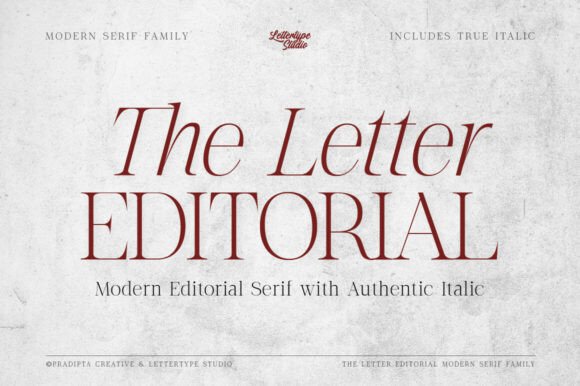
The Letter Editorial Font: Elevate Your Typography with Timeless Elegance
In the world of typography, a font can make all the difference in conveying the tone and personality of a brand or publication. For those seeking a sophisticated and elegant solution, The Letter Editorial font is an exceptional choice. This beautifully crafted serif font embodies the essence of modern editorial elegance, making it perfect for luxury branding, fashion editorials, book design, and high-end packaging.
Introducing The Letter Editorial: A Masterclass in Typographic Elegance
The Letter Editorial is a thoughtfully designed serif font that exudes luxury and refinement. Its distinctive characteristics include:
- Luxurious Contrast: The font features a high contrast between thick and thin strokes, giving it a sense of opulence and sophistication.
- Refined Proportions: The letterforms are carefully proportioned to create a sense of harmony and balance, making it ideal for body text and headlines.
- Gracefully Sculpted Letterforms: Each letter is meticulously crafted to convey a sense of elegance and refinement, ensuring that your typography stands out.
A glimpse into the elegant design of The Letter Editorial font.
Designed with Attention to Detail
The regular style of The Letter Editorial font is designed with a high degree of attention to detail, radiating structure and poise. This makes it an excellent choice for:
- Luxury Branding: Create a lasting impression with a font that embodies sophistication and elegance.
- Fashion Editorials: Elevate your fashion editorials with a font that exudes luxury and refinement.
- Book Design: Add a touch of elegance to your book designs with a font that is both classic and contemporary.
- High-End Packaging: Make a statement with packaging that features a font that is both luxurious and refined.
The Power of True Italic Companion
What sets The Letter Editorial font apart is its true italic companion. Unlike many fonts that simply slant the regular style, The Letter Editorial’s italic is beautifully redrawn with:
- Flowing Strokes: The italic style features flowing strokes that add a sense of dynamism to your typography.
- Elegant Curves: The curves in the italic style are carefully crafted to create a sense of elegance and refinement.
- Dynamic Rhythm: The italic style has a dynamic rhythm that breathes life into your typography, making it perfect for headlines and body text.
A showcase of the beautifully redrawn italic style of The Letter Editorial font.
Function and Flair: The Best of Both Worlds
The Letter Editorial font offers both function and flair, making it an excellent choice for a wide range of applications. Whether you’re crafting:
- Premium Headlines: The font’s elegant design and luxurious contrast make it perfect for creating eye-catching headlines.
- Elegant Body Text: The font’s refined proportions and flowing strokes make it ideal for body text that requires clarity and readability.
Perfect for Those Who Demand Beauty, Clarity, and Character
The Letter Editorial font is perfect for:
- Typography Enthusiasts: Those who appreciate the art of typography will love the elegance and refinement of this font.
- Graphic Designers: Graphic designers seeking a font that can elevate their designs will find The Letter Editorial to be an excellent choice.
- Publishers: Publishers looking for a font that can add a touch of luxury to their publications will appreciate The Letter Editorial.
A showcase of the various use cases for The Letter Editorial font.
In conclusion, The Letter Editorial font is a sophisticated serif font that captures the essence of modern editorial elegance. With its luxurious contrast, refined proportions, and gracefully sculpted letterforms, this typeface is perfect for those seeking to elevate their typography. Whether you’re working on a luxury branding project, fashion editorial, book design, or high-end packaging, The Letter Editorial font is an excellent choice.
Key Takeaways
- Sophisticated Serif Font: The Letter Editorial font is a beautifully crafted serif font that embodies modern editorial elegance.
- Luxurious Contrast: The font features a high contrast between thick and thin strokes, giving it a sense of opulence and sophistication.
- Refined Proportions: The letterforms are carefully proportioned to create a sense of harmony and balance.
- Gracefully Sculpted Letterforms: Each letter is meticulously crafted to convey a sense of elegance and refinement.
- True Italic Companion: The font features a beautifully redrawn italic style with flowing strokes, elegant curves, and a dynamic rhythm.
Experience the elegance and refinement of The Letter Editorial font in your typography projects.